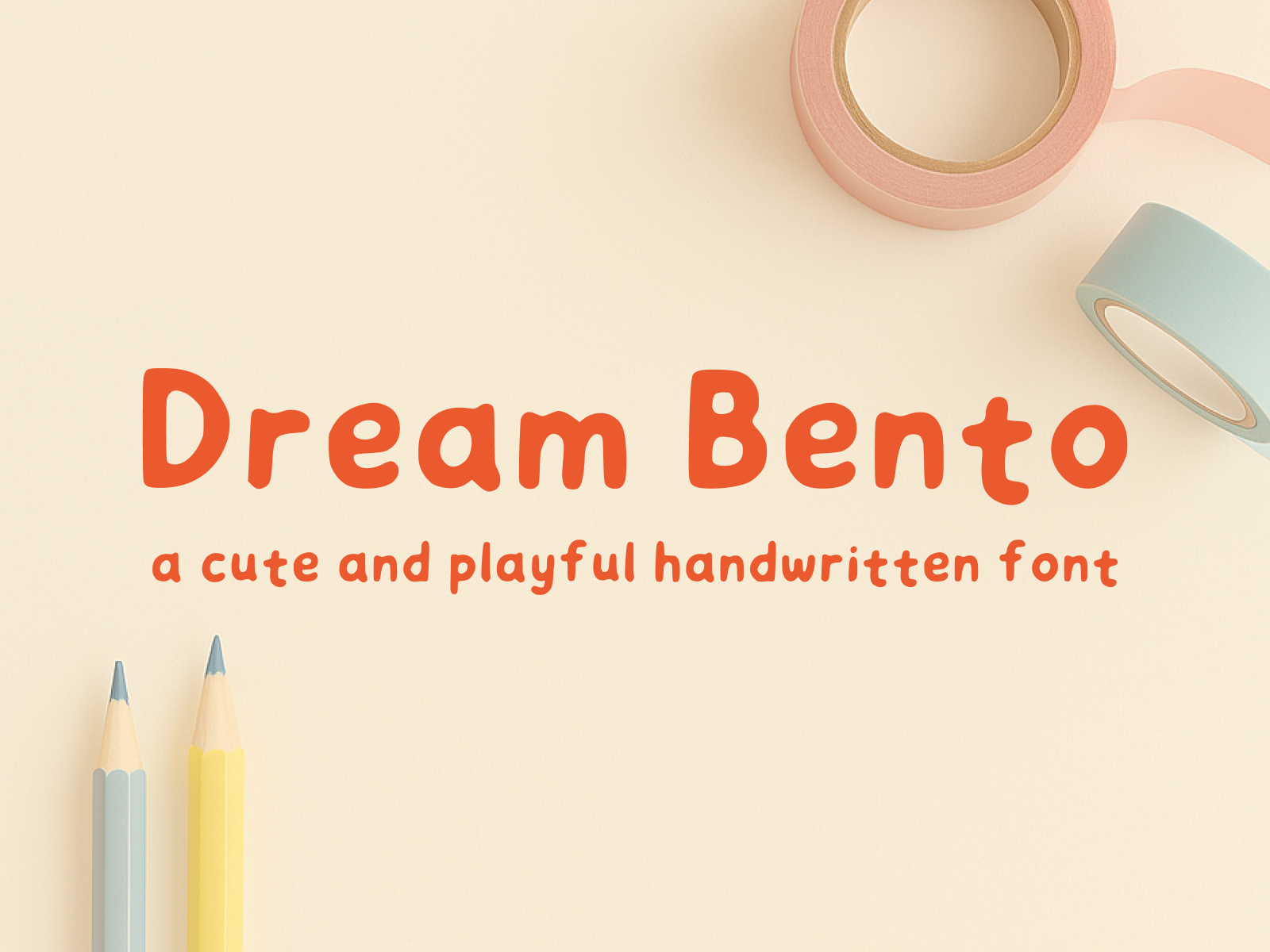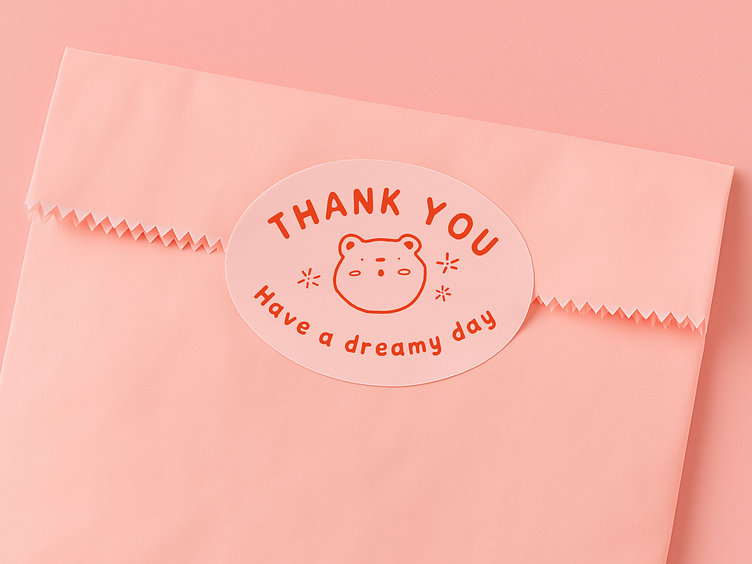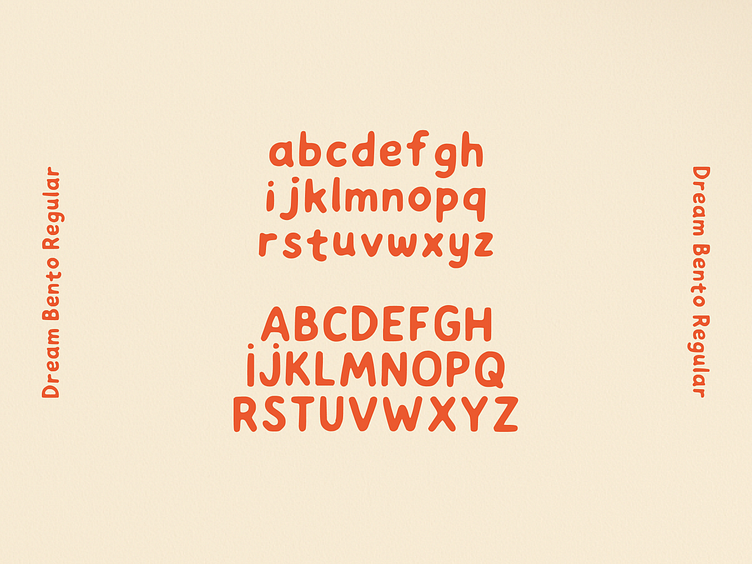
Dream Bento - A cute and playful handwritten font
A font for your creative projects
Introducing Dream Bento, a joyful handwritten typeface designed to add a dash of whimsy to your creative projects. ✨
Born from a love of kawaii stationery and playful lettering, Dream Bento features bubbly letterforms that evoke childhood memories and spark creativity. Whether you're working on branding, packaging, social content, or kids’ illustrations, this font brings a fun and friendly energy to every design.
Let your imagination run wild and give your text that adorable touch with Dream Bento!